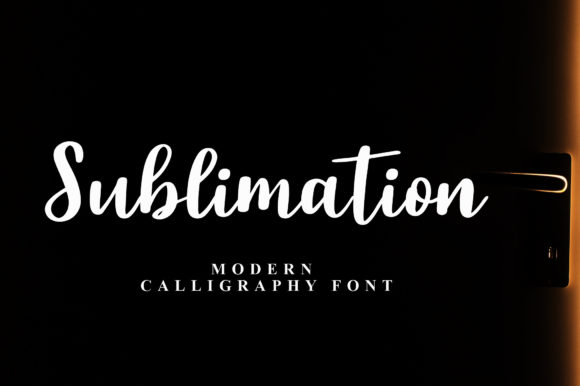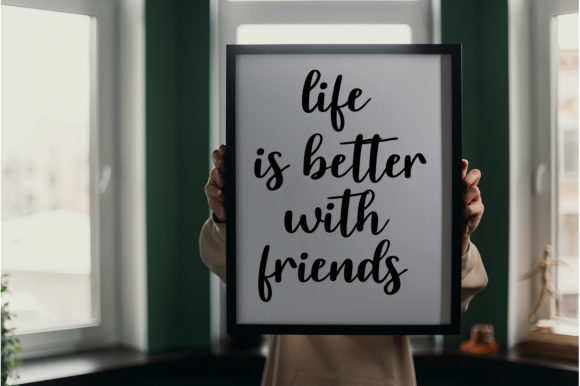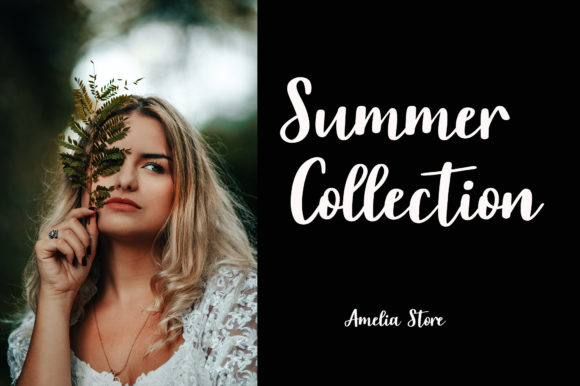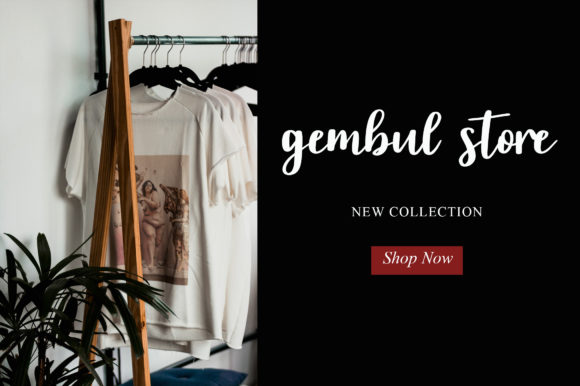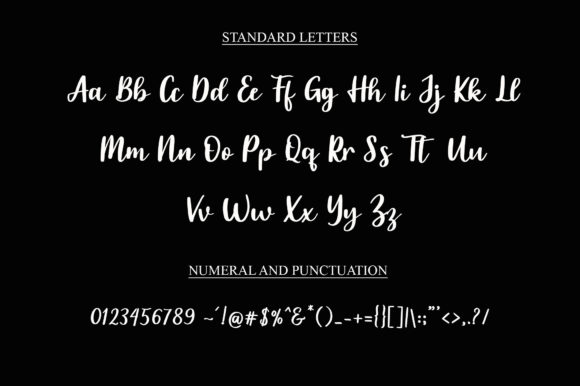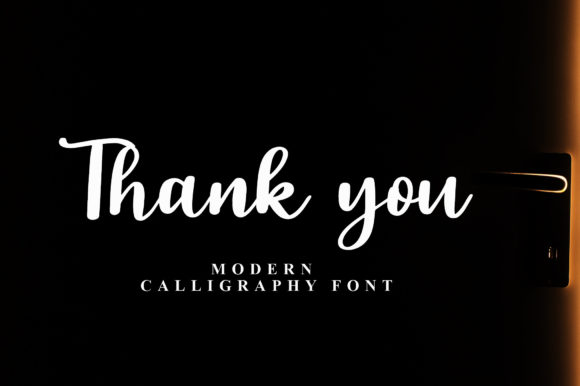
Sublimation Font
About Sublimation Font
Sublimation is a cursive and sweet calligraphy typeface with characters that dance along the baseline. It has a casual, yet elegant touch. Fall in love with its incredibly versatile style and use it to create spectacular designs!